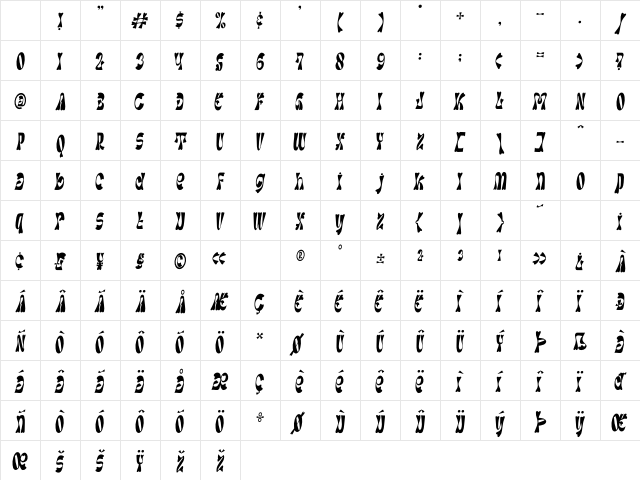
Complete Twist Love Slant Regular glyph index. Displaying only characters natively supported by Twist Love Slant Regular font.
Twist Love Slant is a composed and adaptable typeface that performs quietly and consistently across a wide range of design contexts.